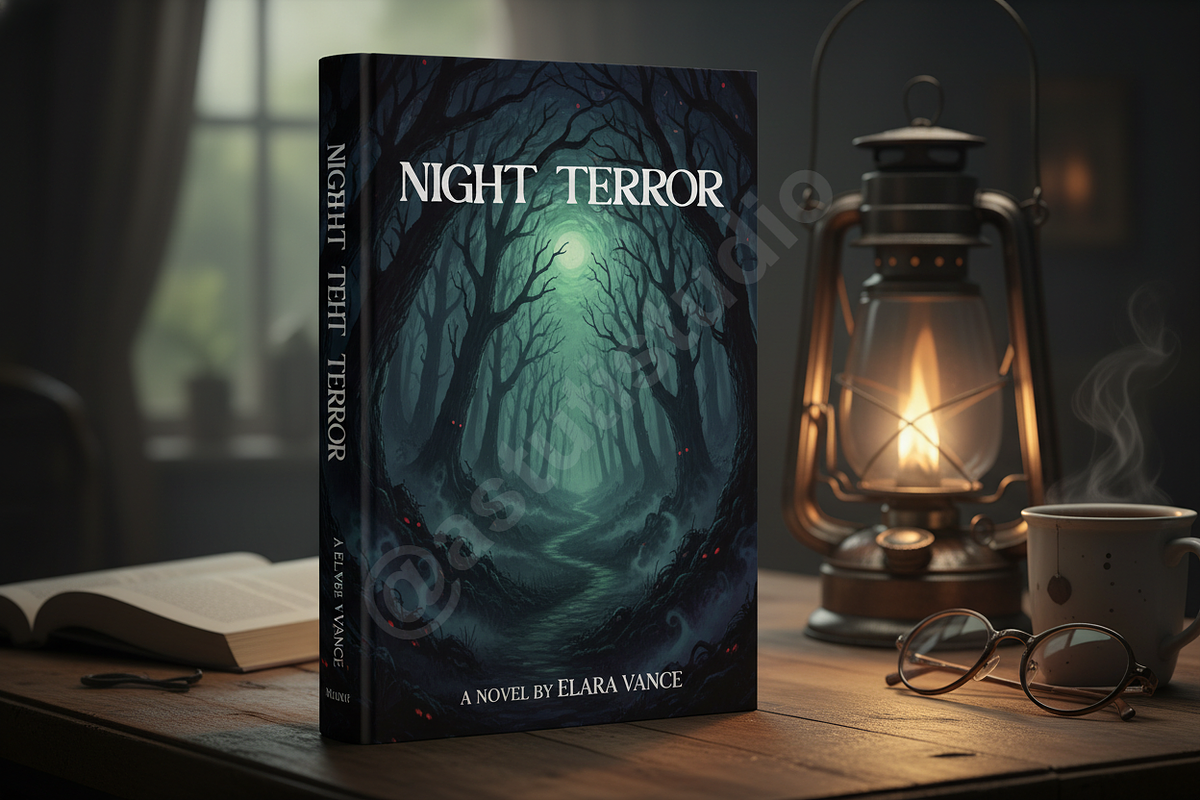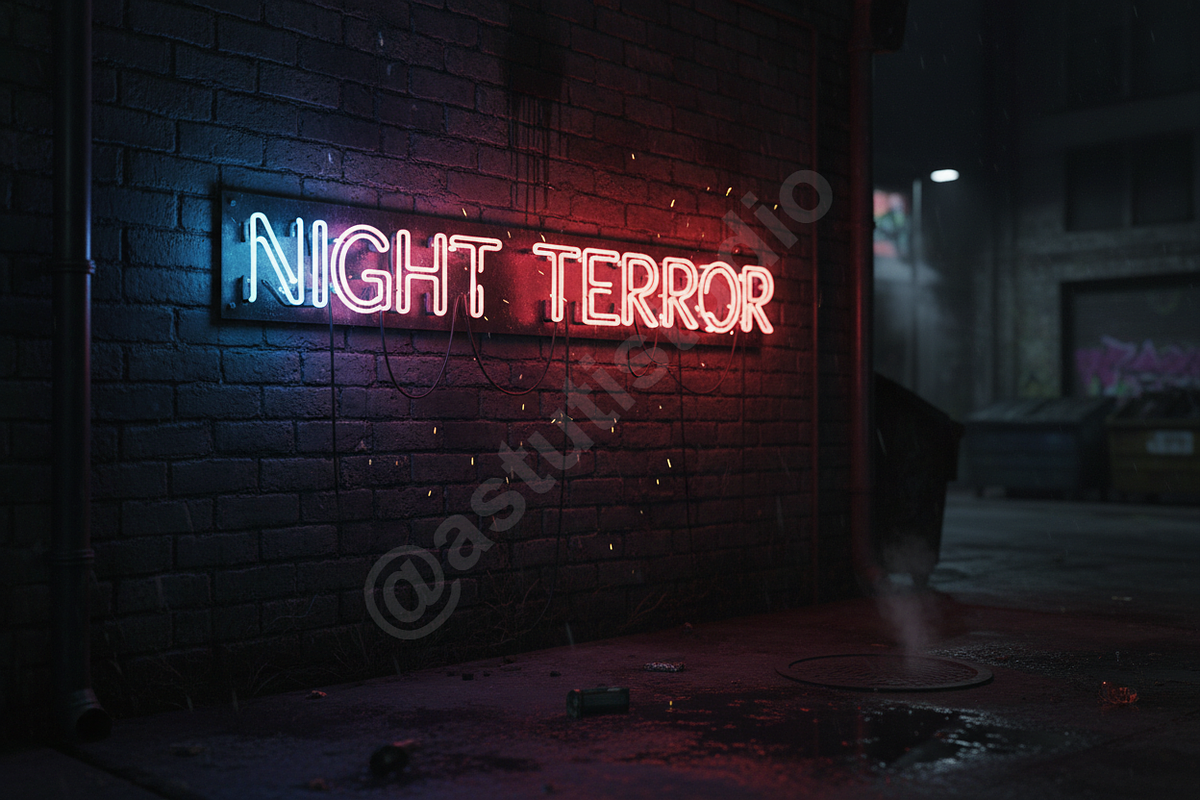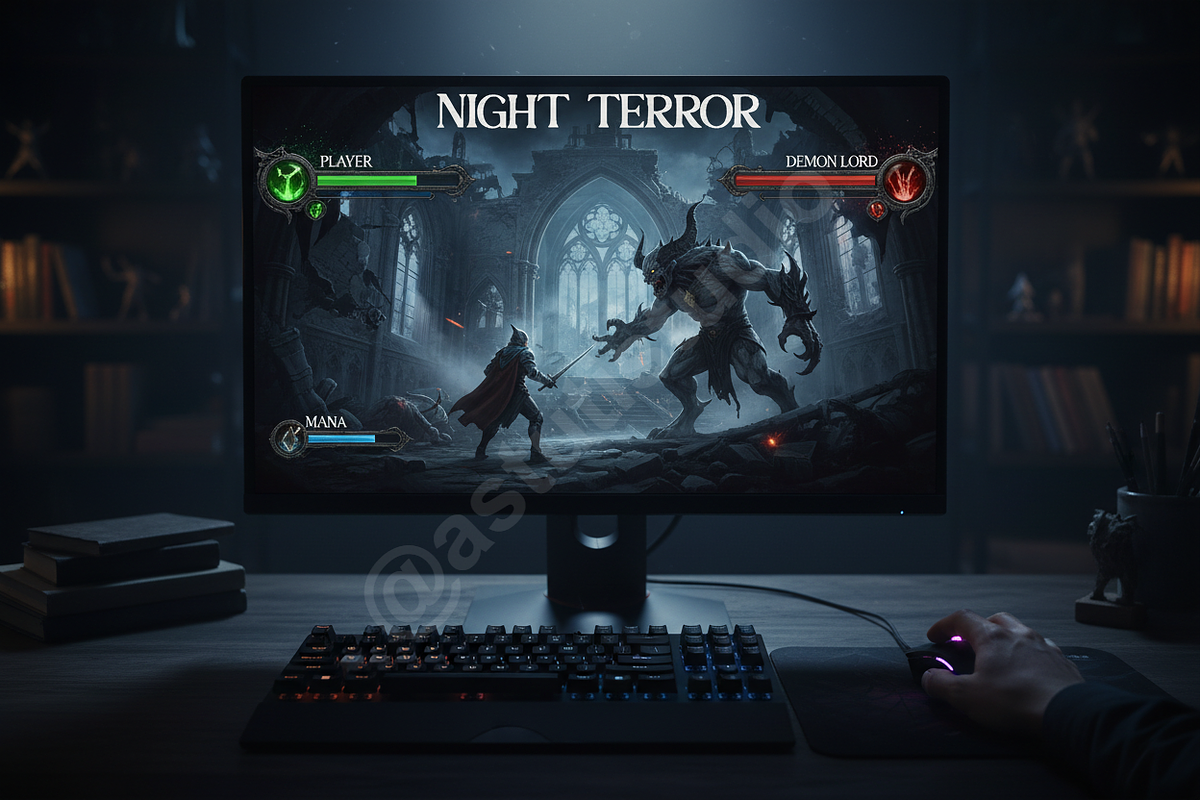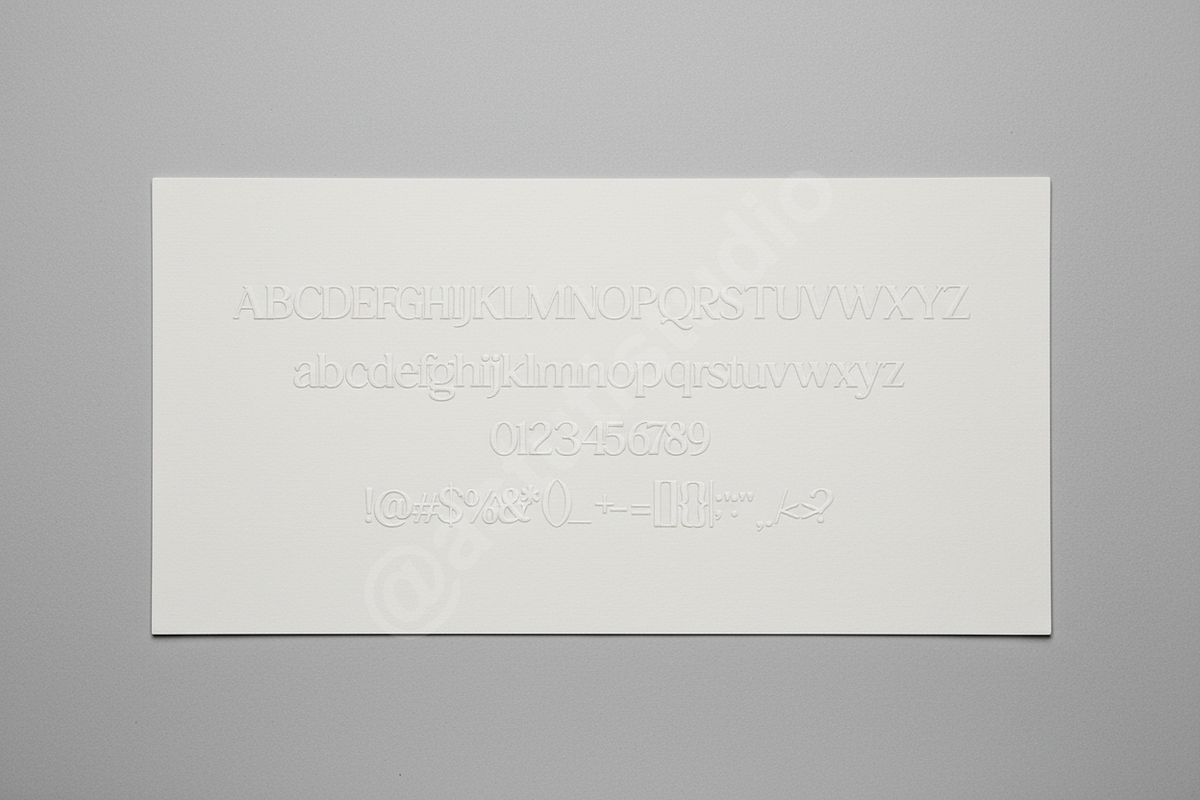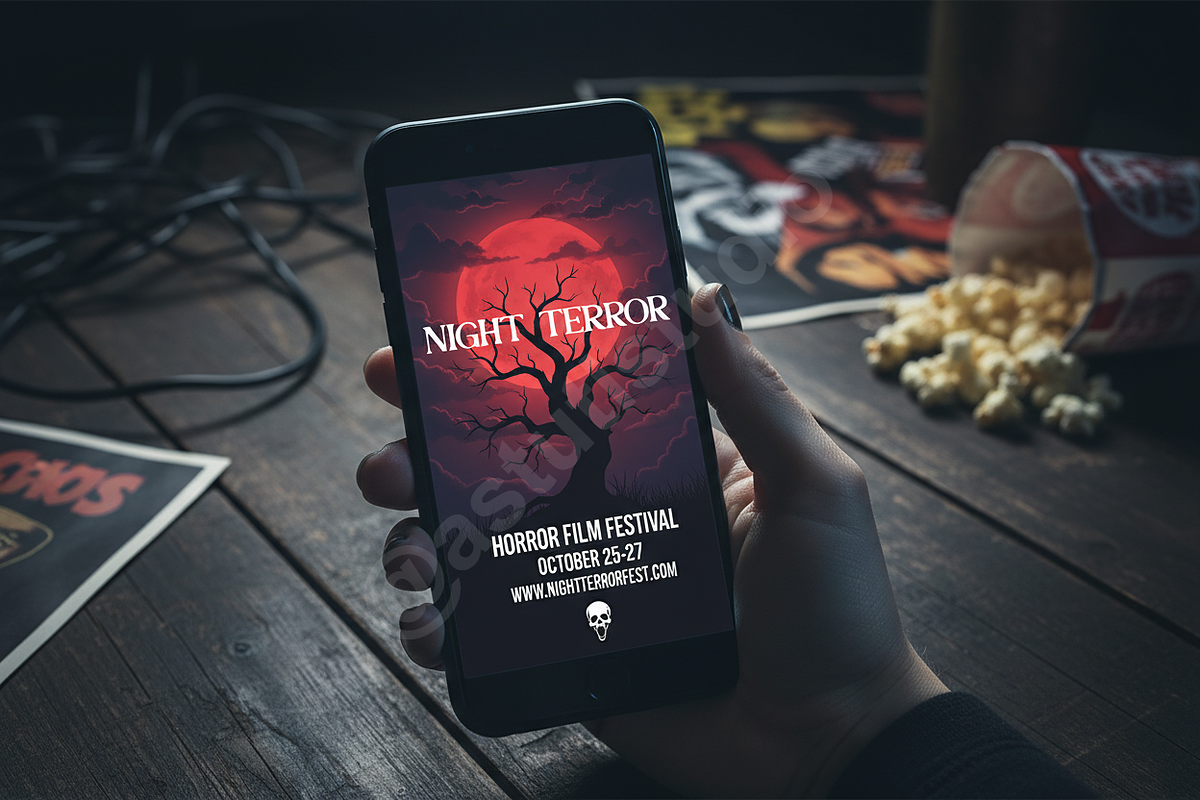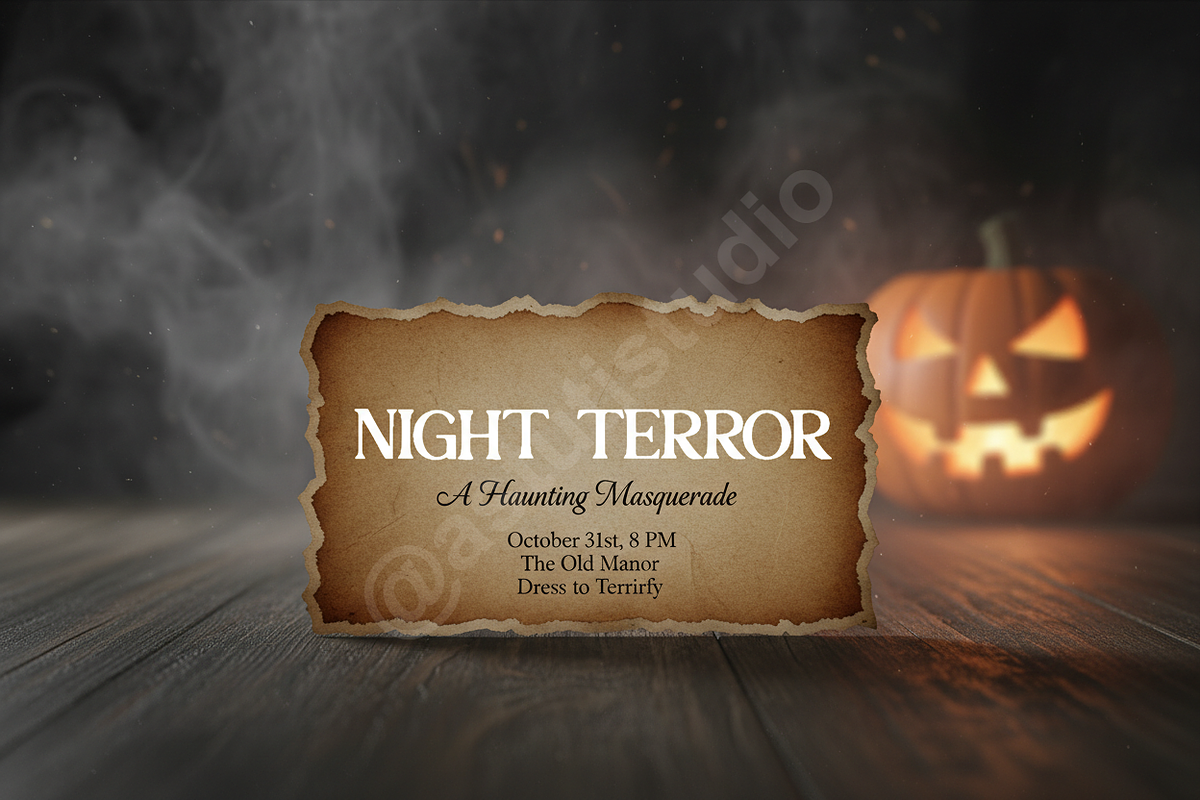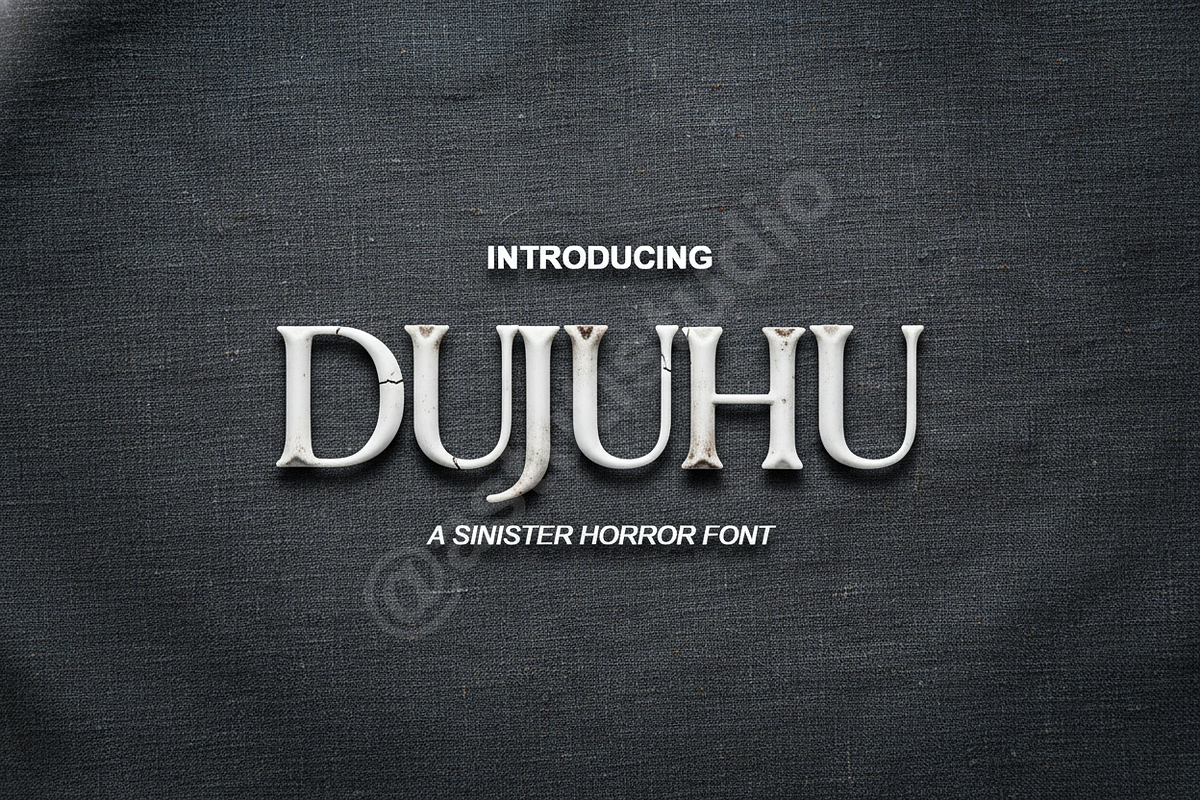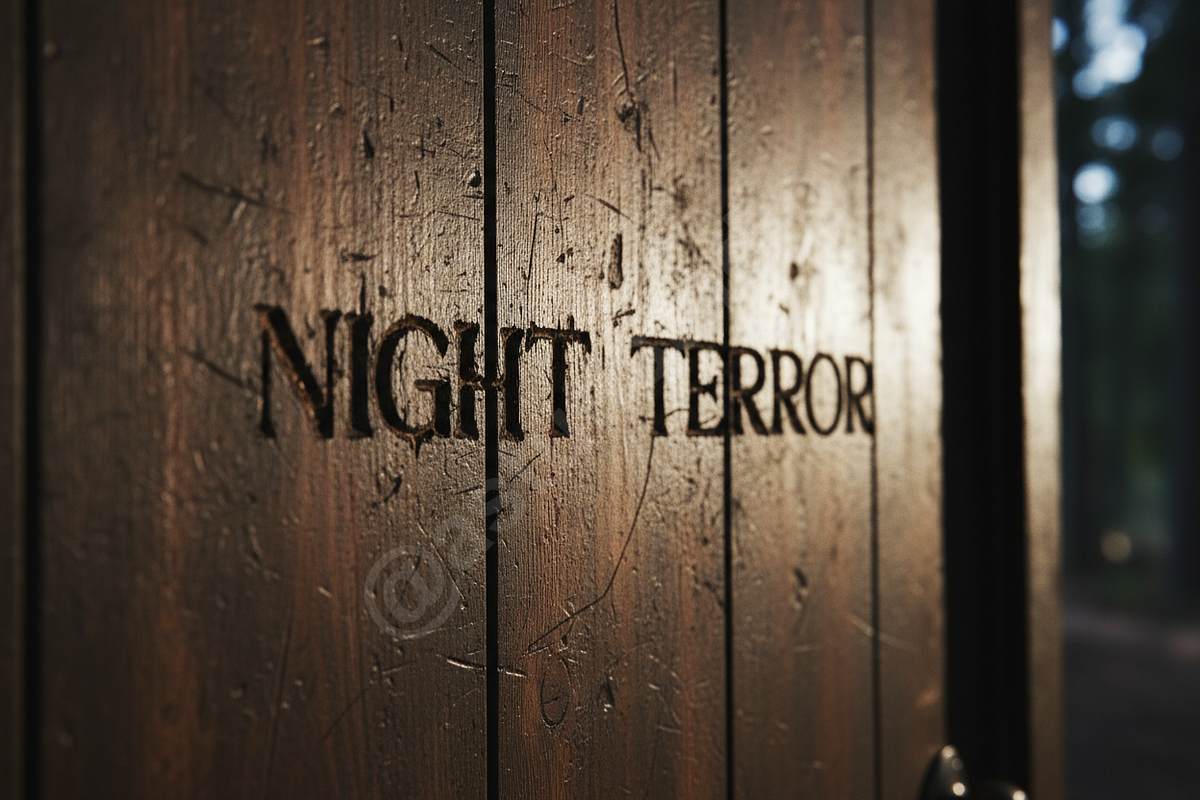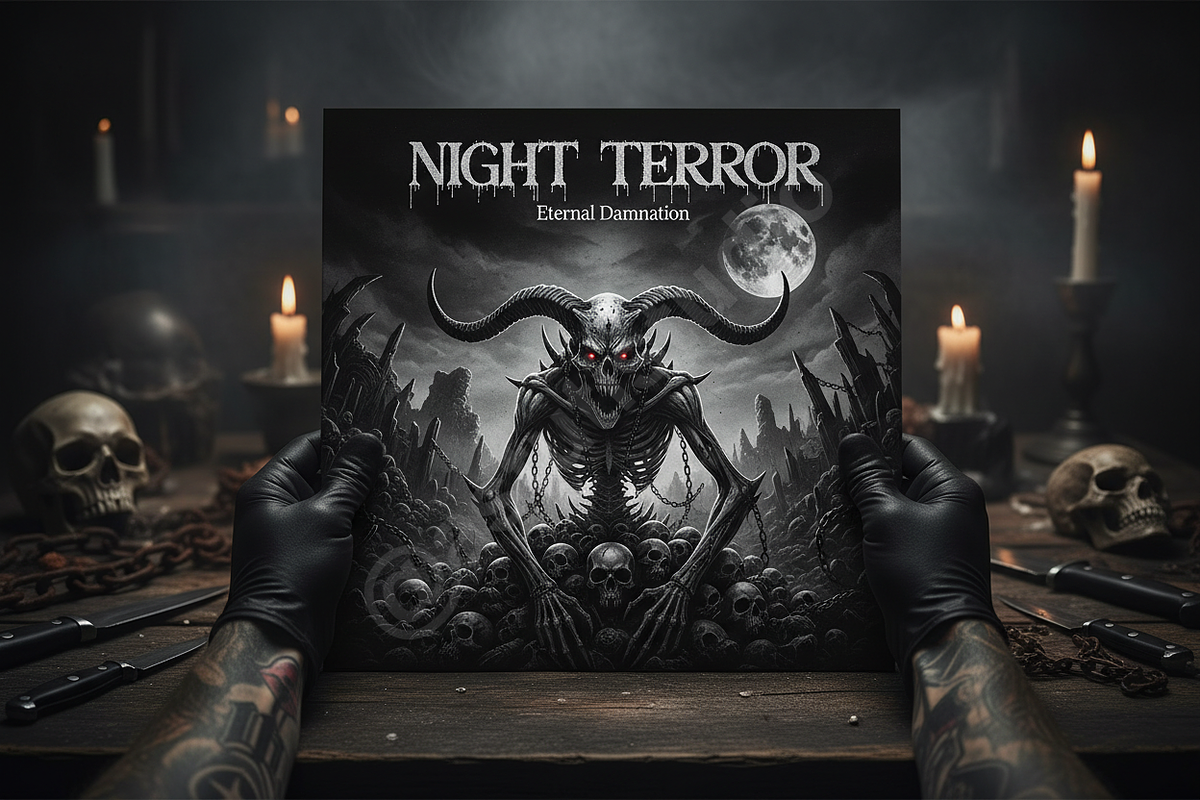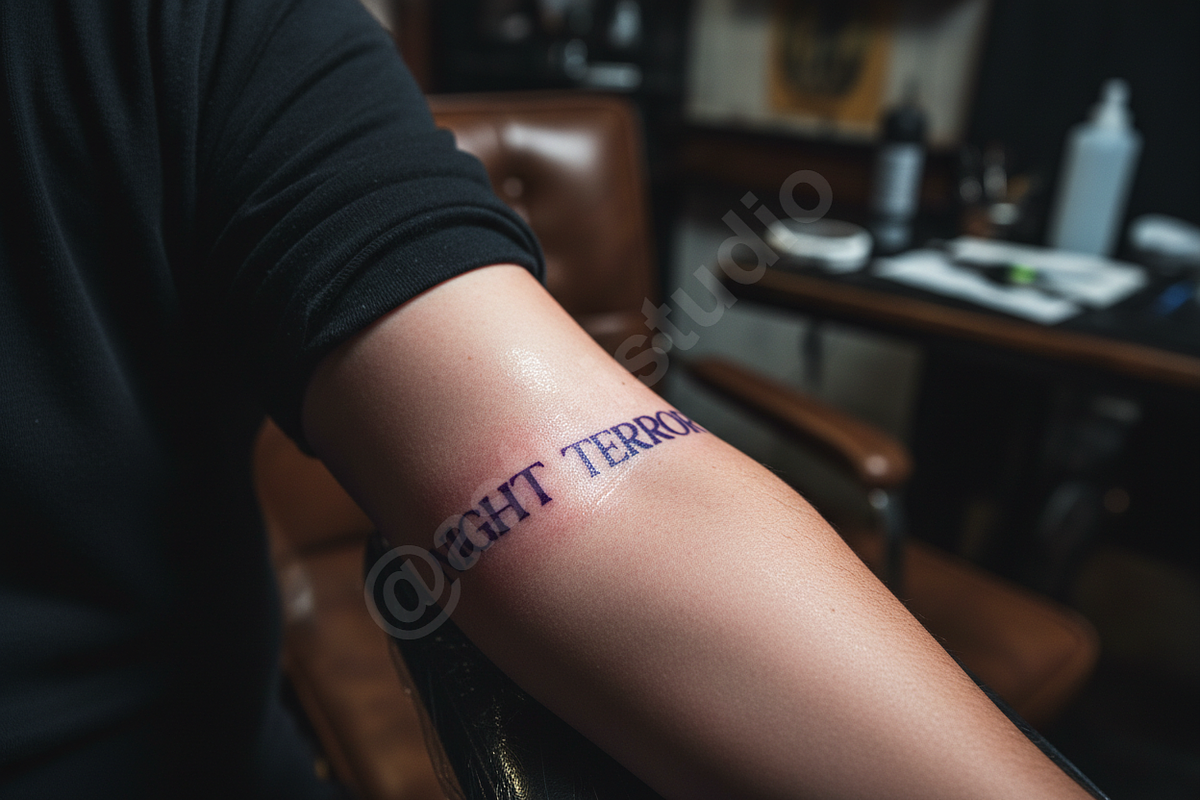
Dujuhu | Luxury High-Contrast Displa
INTRODUCTION
Dujuhu is an exquisite high-contrast serif typeface designed for ultimate sophistication. Inspired by classic high-fashion editorial layouts and luxury brand identities, Dujuhu merges delicate hairlines with bold, sculptural strokes, creating a captivating and memorable visual balance. It is the definitive choice for designers seeking to elevate projects that demand a timeless, opulent aesthetic, from bespoke packaging to high-fashion web design and authoritative editorial spreads.
IDEAL FOR
- Luxury Branding & Identity Design
- High-End Product Packaging
- Fashion Magazine Layouts and Mastheads
- Social Media Graphics (Instagram/Pinterest)
- Wedding Invitations and Stationery Suites
PREMIUM FEATURES
- High-Contrast Display: Optimized for maximum impact and readability at large display sizes.
- Extensive OpenType Features: Includes standard ligatures and stylistic alternates for a true custom typographic feel (e.g., Th, Fi, St).
- Effortless Pairing: A single, meticulously weighted style that pairs seamlessly with minimalist sans-serif fonts.
- Optimized Kerning: Professional kerning and hinting for flawless digital and print reproduction.